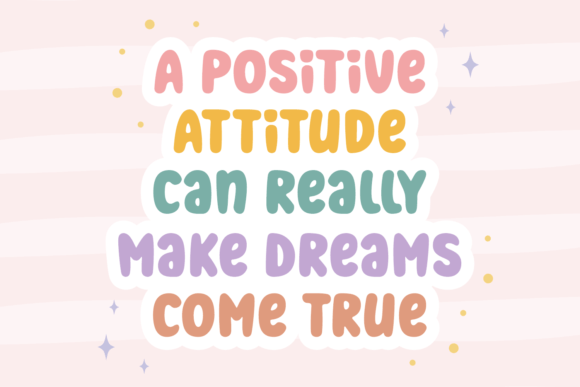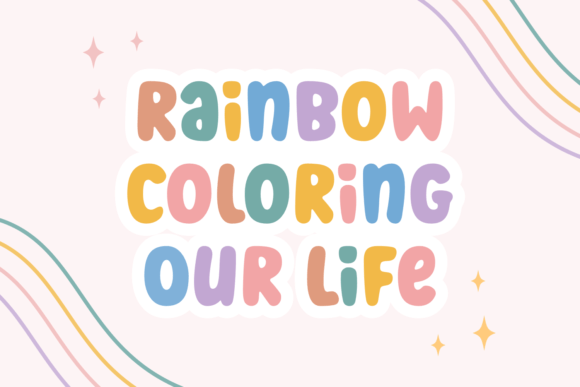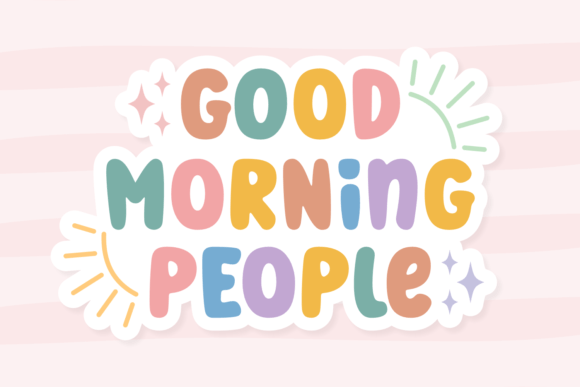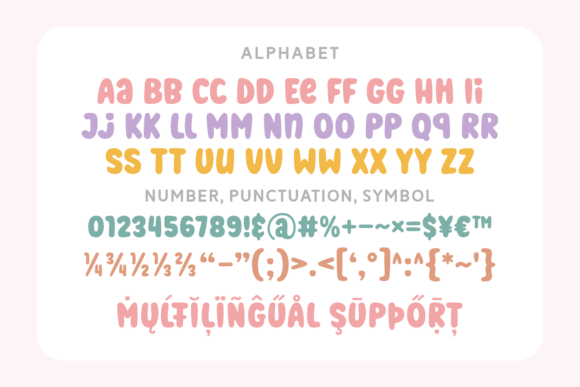
Hago Shine Font: Add a Touch of Whimsy to Your Designs
Are you looking for a font that can add a dash of fun and playfulness to your designs? Look no further than Hago Shine Font! This cheerful and decorative font is perfect for creating eye-catching posters, covers, logos, fabric prints, and more. In this article, we’ll dive into the world of Hago Shine Font and explore its features, uses, and benefits for designers and crafters.
What is Hago Shine Font?
Hago Shine Font is a unique and lively decorative font that is sure to capture attention. Its cheerful and playful characters make it an ideal choice for designs that require a touch of whimsy and fun. Whether you’re creating a poster, logo, or fabric print, Hago Shine Font is the perfect choice to add some personality to your work.
Key Features of Hago Shine Font
- Cheerful and Playful Characters: Hago Shine Font features lively and fun characters that are sure to bring a smile to your face.
- Decorative and Unique: This font is perfect for designs that require a touch of elegance and sophistication.
- High-Quality Design: Hago Shine Font is designed with high-quality and clear lines, making it perfect for printing and digital use.
Uses of Hago Shine Font
Hago Shine Font is a versatile font that can be used in a variety of design projects, including:
- Posters and Flyers: Create eye-catching posters and flyers with Hago Shine Font that are sure to grab attention.
- Logos and Branding: Use Hago Shine Font to create unique and memorable logos and branding materials.
- Fabrics and Textiles: Add a touch of whimsy to your fabric prints and textiles with Hago Shine Font.
- Covers and Packaging: Use Hago Shine Font to create eye-catching covers and packaging materials that stand out.
Benefits of Using Hago Shine Font
Using Hago Shine Font in your designs offers a range of benefits, including:
- Adds Personality to Your Designs: Hago Shine Font adds a touch of whimsy and fun to your designs, making them more engaging and memorable.
- Enhances Typography: This font enhances your typography designs with its lively and cheerful characters.
- Perfect for a Variety of Projects: Hago Shine Font is versatile and can be used in a range of design projects, from posters and logos to fabric prints and covers.
- High-Quality Design: This font is designed with high-quality and clear lines, making it perfect for printing and digital use.
Tips for Using Hago Shine Font
Here are some tips for using Hago Shine Font in your designs:
- Experiment with Different Sizes and Colors: Try out different sizes and colors to find the perfect combination for your design.
- Pair with Other Fonts: Pair Hago Shine Font with other fonts to create a unique and interesting typography design.
- Use in Combination with Images: Use Hago Shine Font in combination with images to create a visually appealing design.
- Keep it Simple: Don’t overcomplicate your design – keep it simple and let Hago Shine Font do the talking.
In conclusion, Hago Shine Font is a cheerful and playful decorative font that is perfect for adding a touch of whimsy to your designs. With its lively characters, high-quality design, and versatility, this font is ideal for a range of design projects, from posters and logos to fabric prints and covers. Whether you’re a designer or crafter, Hago Shine Font is a great choice for enhancing your typography designs and adding personality to your work.